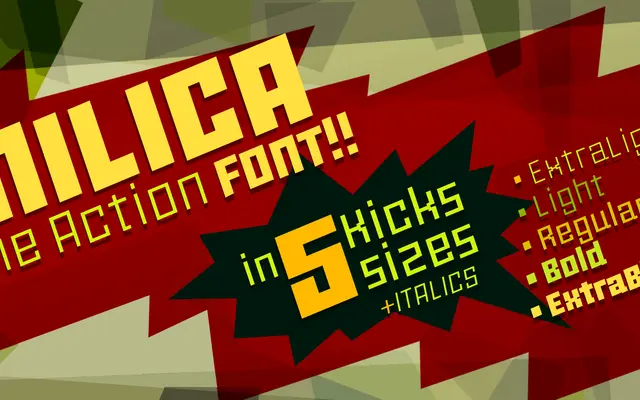
An angular display typeface with straight verticals and slanted horizontals, built for poster, film and urban graphic contexts.
Designed with hard, sharp strokes and no curves, Milica draws from action movie and military visual culture to produce a distinctly blunt typographic voice. The family covers five weights from ExtraLight to ExtraBlack, each with a matching italic, and ships with OpenType features including ligatures, oldstyle figures and stylistic alternates. Suited to large-scale print, video game titles, animation and hip-hop-adjacent graphic work.
Milica is squarely a display typeface designed with straight verticals, slanted horizontals and no curves, drawing from action movie and urban military aesthetics — placing it firmly in the display category with a militaristic, angular subcategory.